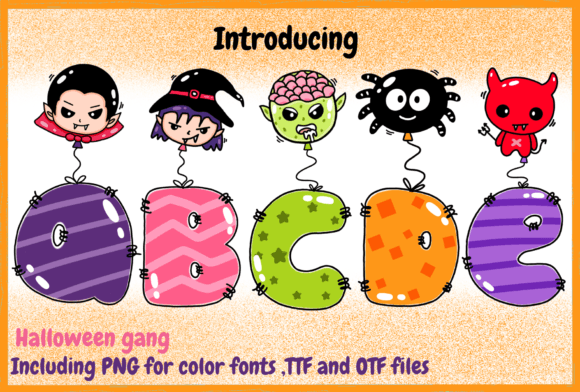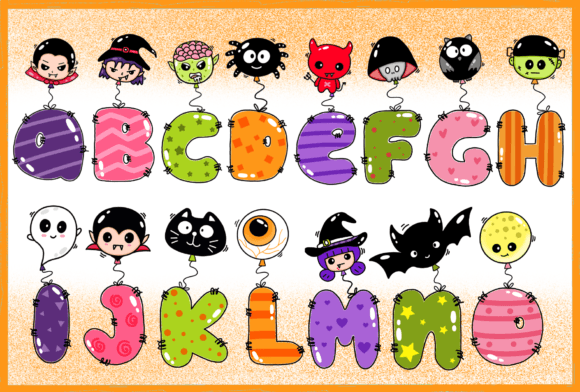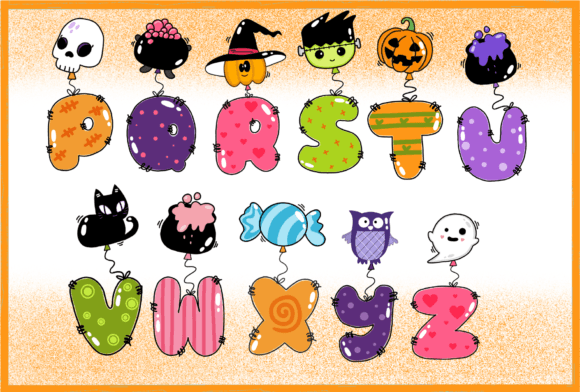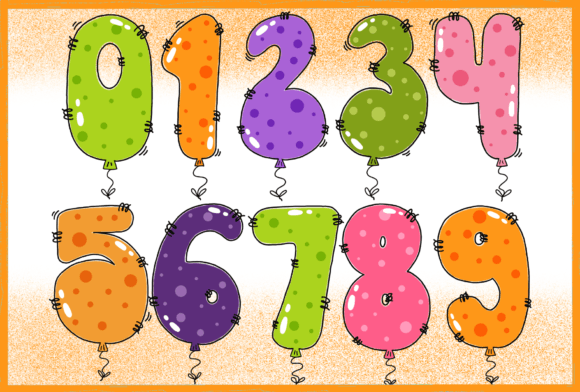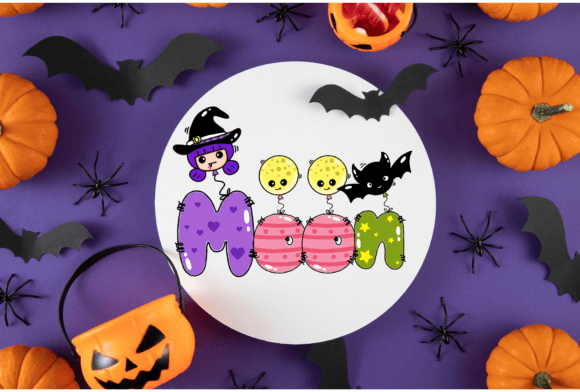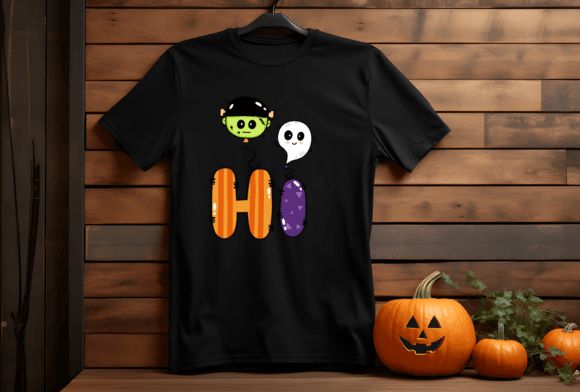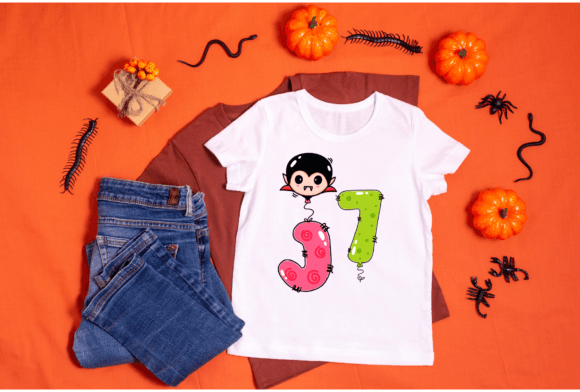
The Spooky Charm of Halloween Gang Font
Imagine you’re rummaging through a treasure trove of craft supplies, searching for the perfect font to add a dash of magic to your latest design project. As you browse through the digital shelves, one font catches your eye – its bold, colorful letters radiating a playful aura that’s impossible to resist. This is when you stumble upon the Halloween Gang Font, a delightful display font that’s sure to bring a smile to the faces of both kids and kids-at-heart.
This charming font is more than just a pretty face; it’s a perfect blend of playfulness and authenticity that’s sure to elevate any design. Whether you’re working on a children’s activity, a school project, or a festive marketing campaign, the Halloween Gang Font is the ideal choice to add a touch of whimsy and excitement. Its chunky letters will breathe life into your designs, making them stand out in a crowd.
Halloween Gang Font Key Features
- Unique Characteristics: Includes creepy and spooky elements, such as bats, spiders, and jack-o-lanterns, to create a festive atmosphere.
Halloween Gang Font Review
Overall, I think the Halloween Gang Font is a fun and quirky addition to any design project. ✨ The font’s unique combination of bold lines, playful shapes, and eclectic letterforms makes it perfect for adding a touch of whimsy to your designs. ✨
- Unique and playful letterforms
- Perfect for adding a touch of whimsy to designs
- Great for Halloween-themed projects, but versatile enough for other seasonal or themed designs
However, there are a few limitations to keep in mind. ⚠️ The font may not be suitable for all types of text, as the bold lines and playful shapes can make it difficult to read in certain contexts. Additionally, the font’s eclecticism can be overwhelming if used extensively throughout a design.
Limits and Considerations:
- May not be suitable for all types of text
- Can be overwhelming if used extensively throughout a design
Overall, I think the Halloween Gang Font is a great addition to any design library, but it’s essential to use it judiciously and in the right context. With a little creativity and restraint, this font can add a lot of fun and personality to your designs.
Tips for Getting the Most Out of the Halloween Gang Font
To get the most out of the Halloween Gang Font, use it in combination with other Halloween-themed graphics and colors. Experiment with different font sizes, colors, and effects to create a spooky atmosphere.
The Halloween Gang Font is ideal for creating spooky invitations, posters, and flyers. It’s also great for adding a Halloween twist to social media graphics and website designs.